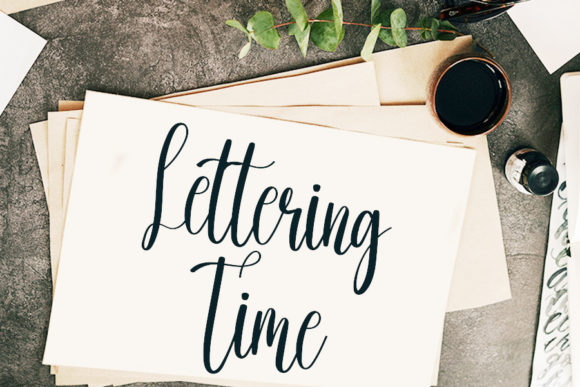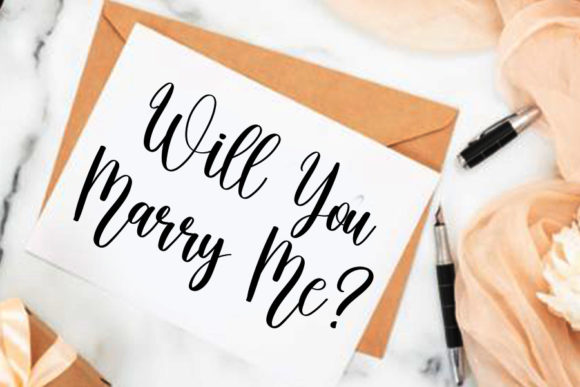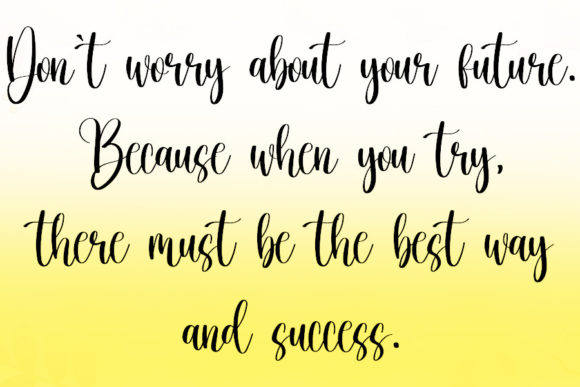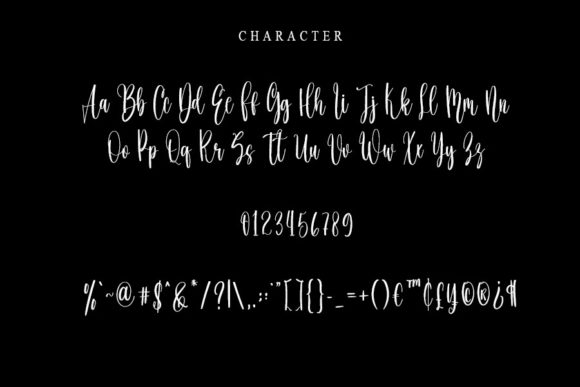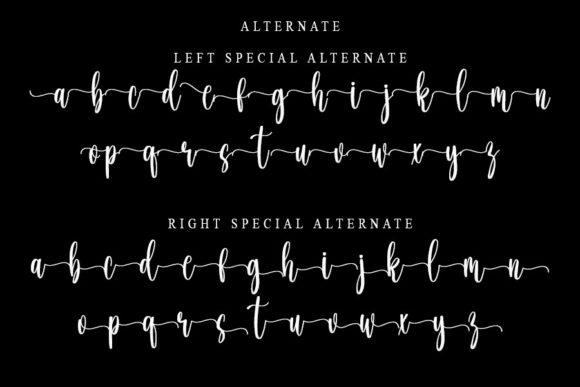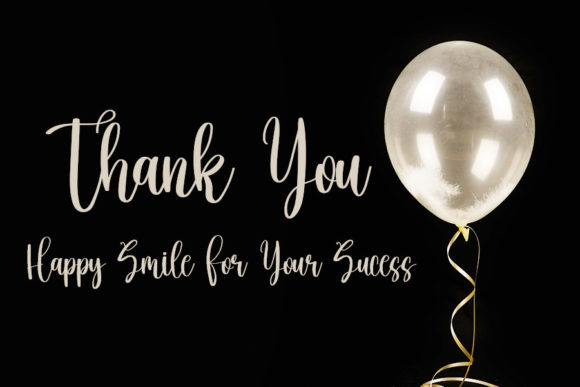
The Art of Elegant Design: Unlocking the Beauty of Calligraphy Font
Have you ever found yourself staring at a blank page, desperately searching for the perfect font to bring your design to life? You’ve poured your heart and soul into the concept, but something’s missing – that certain je ne sais quoi that elevates your creation from mere mortal to masterpiece.
That’s where the Calligraphy Font comes in – a stunning script font designed to add a touch of elegance and sophistication to your designs. Crafted with precision and care, this font is the perfect solution for those seeking a beautiful and refreshing look. With its PUA encoding, accessing the amazing glyphs and ligatures is a breeze, allowing you to unleash your creativity and bring your vision to life.
For designers, the Calligraphy Font is a valuable addition to any toolkit, offering a unique opportunity to express themselves and push the boundaries of what’s possible. Whether you’re working on a branding project, creating a wedding invitation, or designing a business card, this font is sure to impress and leave a lasting impression.
Key Features of Calligraphy Font
- Unique Characteristics: Calligraphy Font boasts elegant and cursive strokes, with intricate details and flourishes that evoke a sense of sophistication and artistry.
Calligraphy Font Review
Overall, I’d say the Calligraphy Font has some great qualities, but it also has its drawbacks.
- Beautiful, elegant lettering: The Calligraphy Font is perfect for adding a touch of sophistication to any design project.
- Customization options: It comes with a range of styles, sizes, and colors to choose from, making it highly versatile.
- Legibility: Despite its ornate design, the font is still easy to read, making it suitable for body text as well as headings.
- Difficulty in editing: The intricate design of the font can make it challenging to edit or adjust individual characters.
- Overuse: The font’s elegance can also make it feel overused or clichéd if not used thoughtfully.
Overall, I think the Calligraphy Font is a great choice for designers who want to add a touch of luxury to their projects. While it may have some limitations, its beauty and customization options make it a valuable addition to any design library.
Calligraphy fonts are commonly used in:
Anniversary and birthday cards
Special occasion decorations and signage
Artistic and creative projects